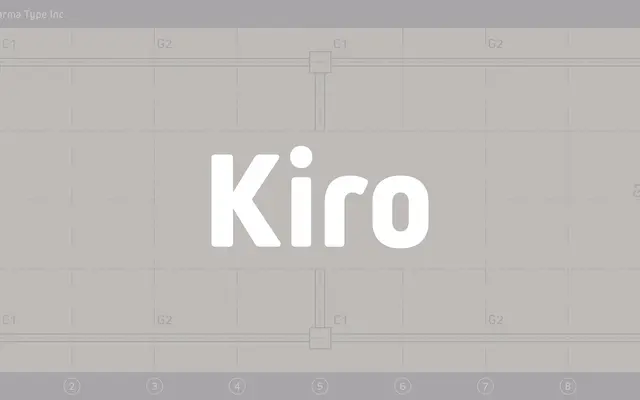
Kiro
Dharma Type · Ryoichi Tsunekawa
A condensed, semi-modular sans by Ryoichi Tsunekawa with a large x-height and subtly rounded corners across six weights.
Designed by Ryoichi Tsunekawa, Kiro is a condensed sans-serif built on a semi-modular structure where unnecessary stems are stripped away and corners carry a slight rounding. The family runs to 12 styles across six weights from Thin to ExtraBold, each with a matching italic. A generous x-height keeps it legible at body sizes, while the narrow proportions make it well suited to headlines and tight editorial layouts.
A minimal condensed sans-serif with semi-modular construction and subtly rounded corners, sitting between geometric and humanist tendencies without committing fully to either.